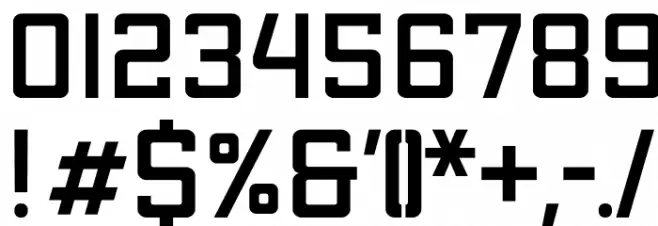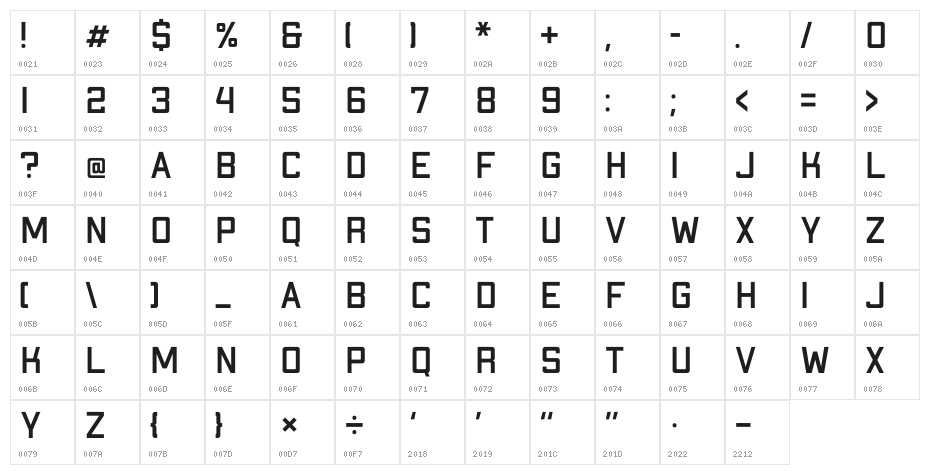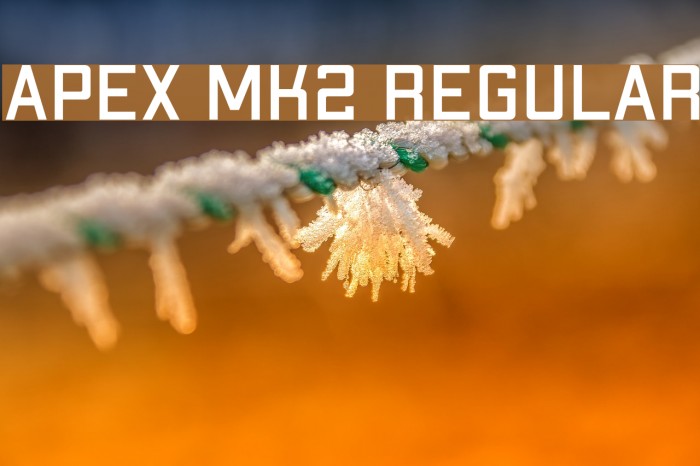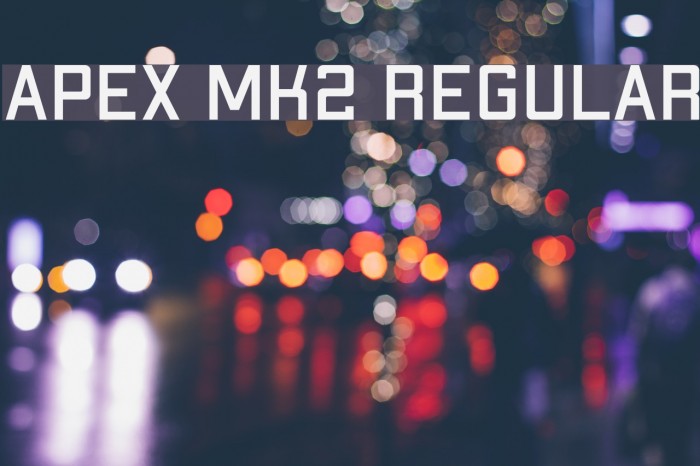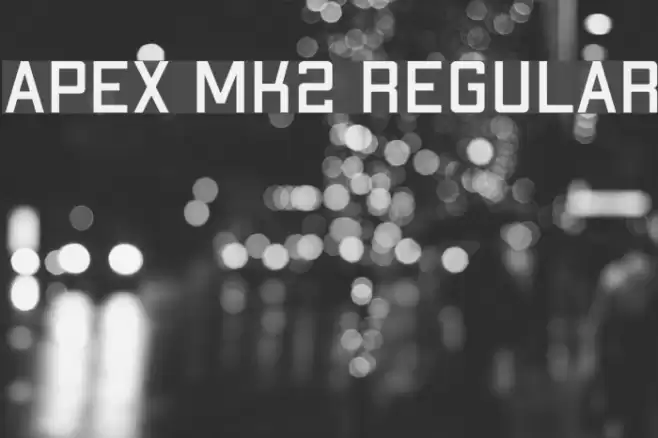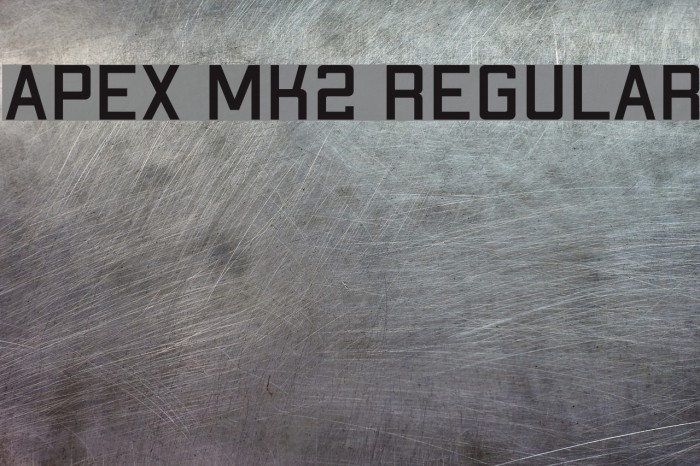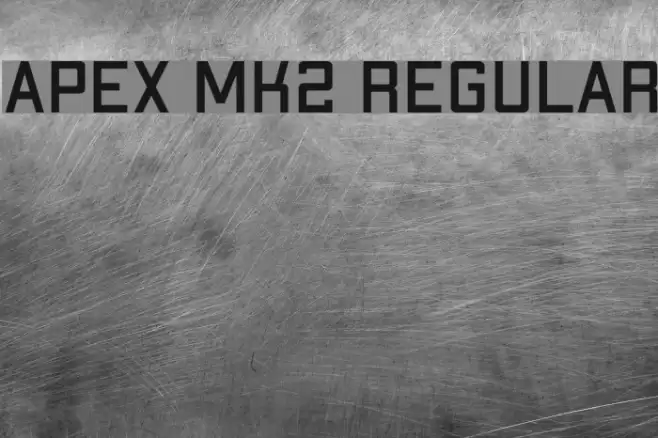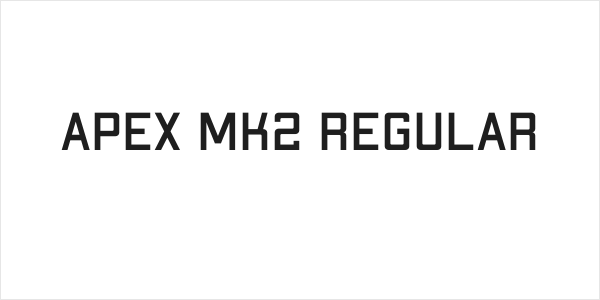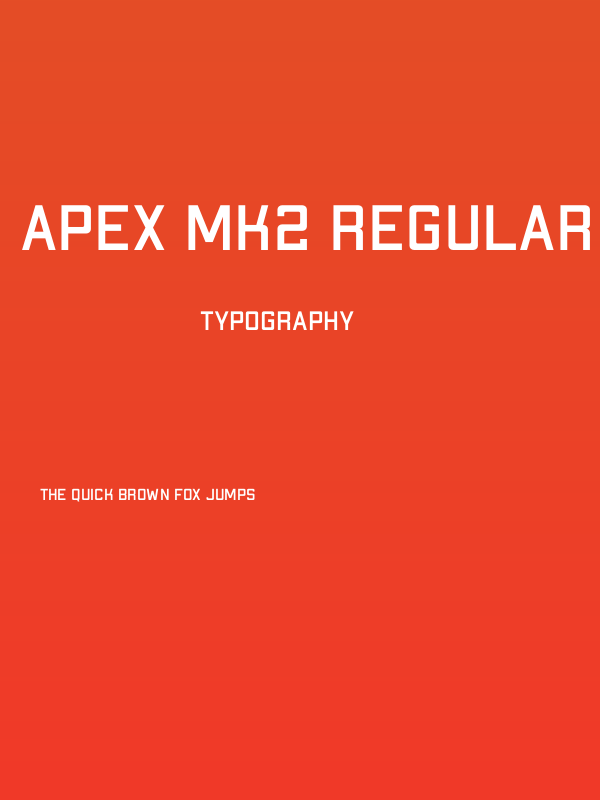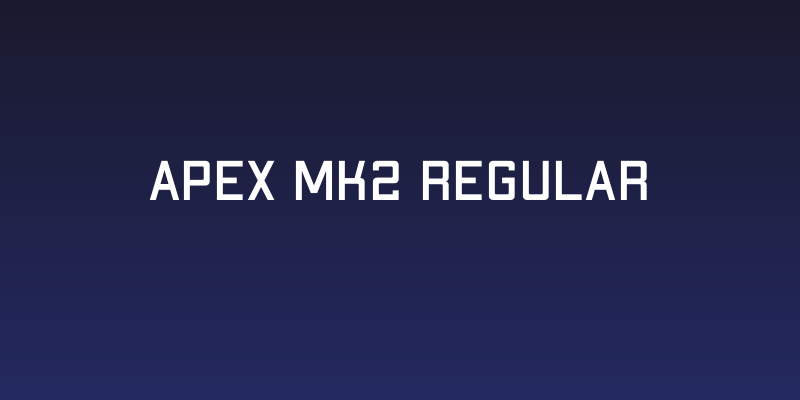
Apex Mk2 Regular Font
Apex Mk2 Regular Description
This font features a bold, geometric sans-serif style with a modern and industrial aesthetic. The characters are constructed with straight lines and sharp angles, giving them a robust and sturdy appearance. The uppercase letters are uniform in height, while the lowercase letters maintain a consistent baseline, enhancing readability. The numerals are equally bold and align well with the overall design, making them suitable for technical or futuristic themes. Special characters are designed to match the boldness and geometric nature of the alphabet, ensuring a cohesive look across all glyphs.